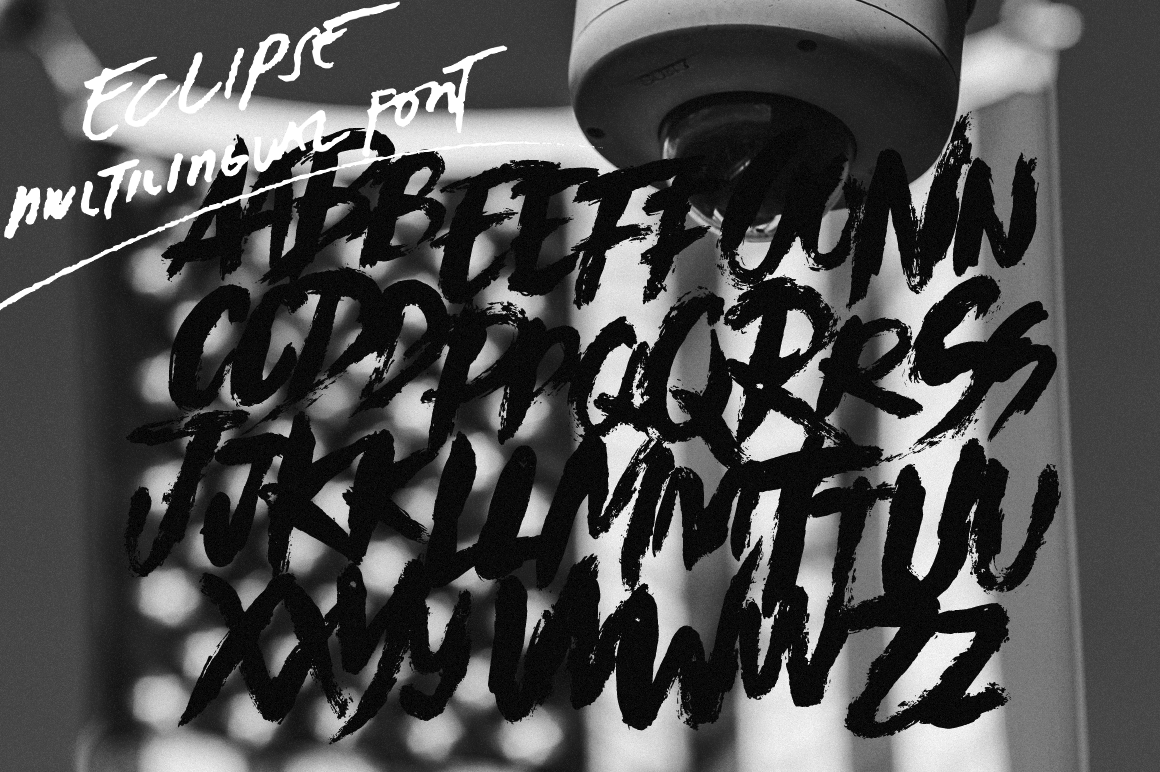
This is messy and chaotic. A font of disorder. Eclipse!
With the use of an old round brush and textile ink, we produced a detailed look of another raging font.
-Multilingual
-Alternate Caps
Eclipse Font is a grunge-style typeface featuring a chaotic and textured design created with an old round brush and textile ink. It includes multilingual support, alternate caps, and is available in both OTF and TTF formats.